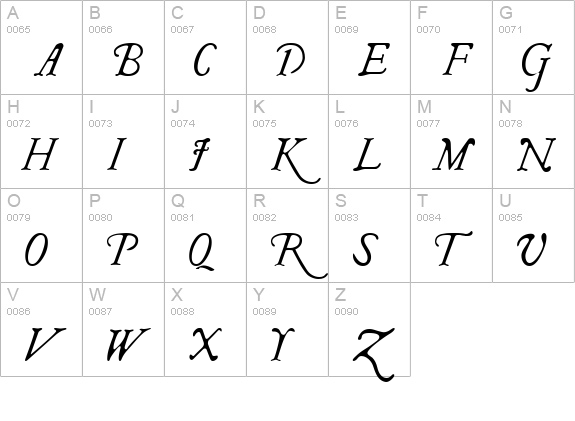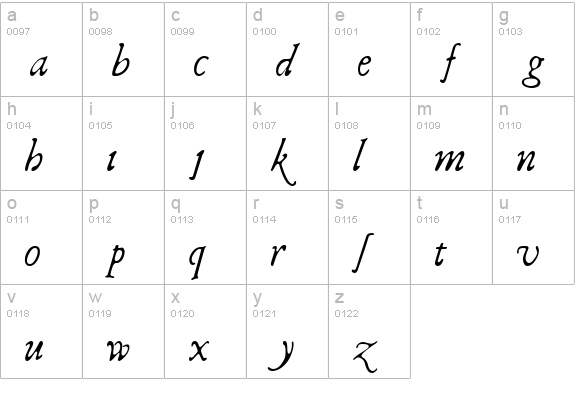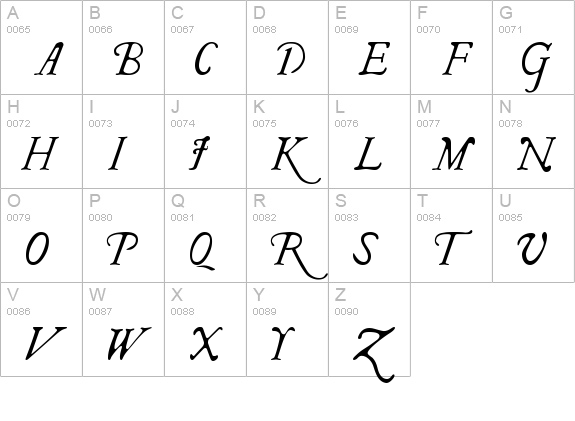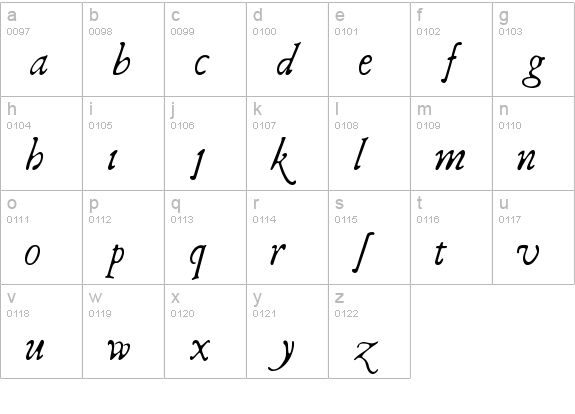
ILShakeFest Font Details
ILShakeFest font is a stunning display font that is sure to catch the eye and add a touch of excitement to any project. With its unique and dynamic letterforms, this font is perfect for creating attention-grabbing headlines, posters, logos, and more. The ILShakeFest font is characterized by its playful and energetic design, making it the ideal choice for projects that need a bold and lively aesthetic. Each letter is expertly crafted with exaggerated curves and sharp angles, giving the font a sense of movement and personality. One of the best features of ILShakeFest font is that it is available for free! Yes, you heard that right – this incredible font can be downloaded at no cost from FontsMarket.com. This means that you can enhance your designs with this fantastic font without breaking the bank. Whether you're a professional designer or simply someone looking to add a little flair to your personal projects, ILShakeFest font is the perfect choice. Its versatility and eye-catching design make it suitable for a wide range of applications, from website headers to social media graphics. So why wait? Head over to FontsMarket.com and download ILShakeFest font today. Add a touch of fun and excitement to your designs with this remarkable font that won't cost you a penny.